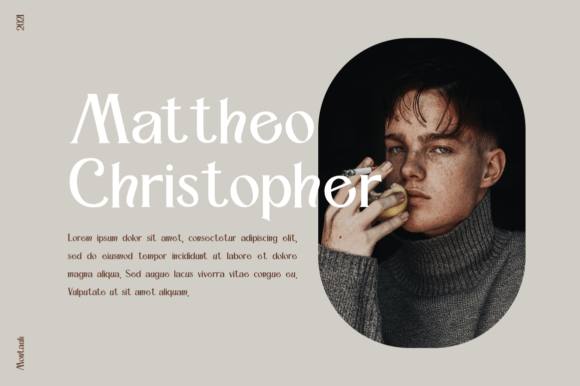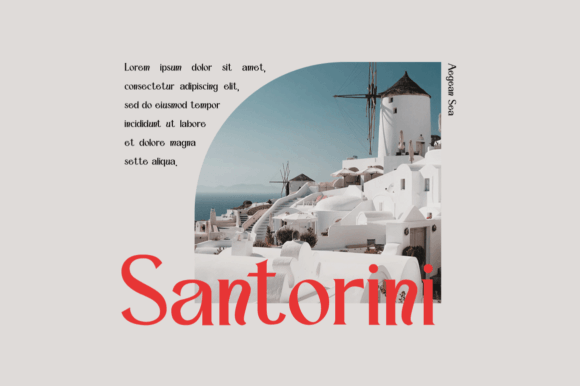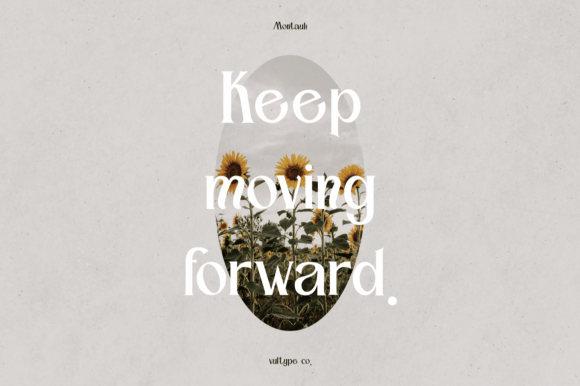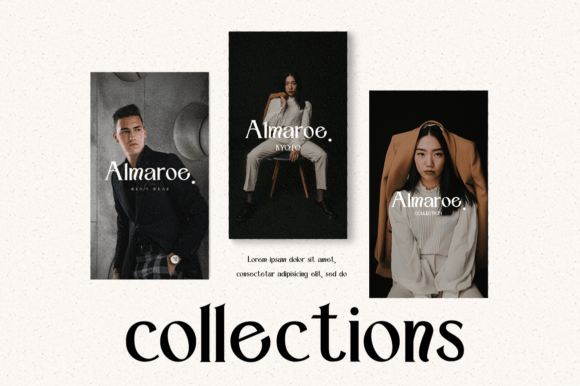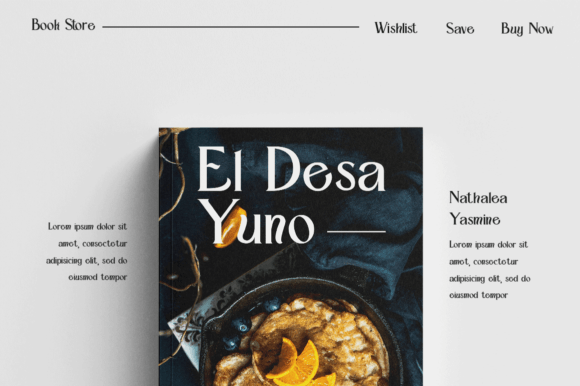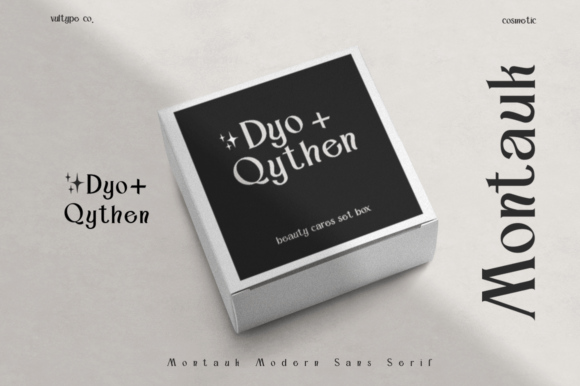
Introduction to Montauk Font Font
Fonts play a crucial role in design, and the Montauk Font font is a typeface that brings both character and versatility to any project. Whether you’re working on a branding project, a website, or a print design, the Montauk Font font offers a unique style that can elevate your work.
Montauk is a bold, modern, and vintage serif typeface with sweet curves that will make your logo or brand even more stunning and stand out.
Montauk will be perfect for many projects: fashion, magazines, logo, branding, photography, product packaging, advertisements, and more .
Key Features of Montauk Font Font
Why Choose Montauk Font Font?
The Montauk Font font is more than just a typeface – it’s a design tool that helps you communicate your message with style and clarity. Its unique character set and versatile design make it suitable for a wide range of applications, from elegant invitations to bold headlines.
With its carefully crafted letterforms and balanced proportions, the Montauk Font font ensures readability and visual appeal across all mediums.
What makes Montauk Font font special?
The Montauk Font font stands out with its unique design, exceptional readability, and versatility across various design applications.